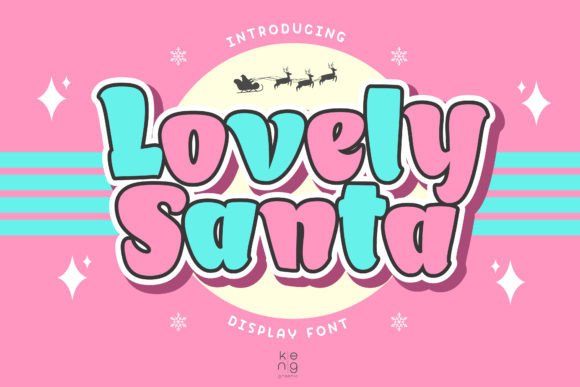
Why Lovely Santa is the Perfect Font for Modern Creative Projects
In today's fast-paced digital world, visual identity plays a crucial role in capturing attention and conveying emotion. One font that has been making waves in the design community is Lovely Santa, a cartoon-style display font that brings a unique blend of youthfulness and courage to any project. With its bold, playful aesthetic, Lovery Santa is more than just a font—it's a statement.
Designed with a focus on clarity and impact, Lovely Santa is ideal for creators looking to add a touch of whimsy without sacrificing professionalism. Its distinct character makes it instantly recognizable, which is especially valuable in a market where standing out is essential. Whether you're designing a comic book cover, a social media post, or a promotional poster, Lovery Santa can elevate your work with its vibrant energy.
The Rise of Playful Typography in Modern Design
The design industry has seen a shift towards more expressive and emotionally resonant visuals. As consumers become more discerning, brands are turning to fonts like Lovely Santa to convey personality and connect with their audience on a deeper level. This trend aligns with the growing demand for content that feels authentic and engaging, rather than generic and impersonal.
Typography is no longer just about readability—it's about storytelling. Lovely Santa embodies this philosophy by offering a visual language that speaks to both children and adults. Its playful curves and dynamic shapes make it perfect for projects that aim to evoke joy, excitement, or nostalgia. In an era where first impressions matter, using a font like Lovery Santa can help your work stand out in a crowded marketplace.
Applications Across Industries and Media
Lovely Santa has found a home in a variety of creative fields, from graphic design to digital marketing. Its versatility allows it to be used in everything from online games and mobile apps to merchandise and advertising campaigns. For instance, indie game developers often use Lovery Santa to give their titles a fun, approachable feel that appeals to younger audiences.
Marketers have also begun to recognize the value of Lovery Santa in creating eye-catching social media content. With platforms like Instagram and TikTok prioritizing visually striking posts, a font that commands attention can make all the difference. Whether it's a promotional banner, a product label, or a hashtag, Lovery Santa adds a layer of creativity that resonates with users.
Understanding the Appeal of Playful Fonts
Why are fonts like Lovery Santa gaining so much traction? Part of the answer lies in the changing preferences of modern consumers. Today’s audiences are drawn to content that feels fresh, original, and emotionally engaging. Generic, overly serious typography no longer cuts through the noise—what works is something that feels alive and expressive.
This shift is particularly evident in the entertainment and lifestyle sectors. Comic books, animated films, and even fashion brands are embracing fonts that reflect their brand's personality. Lovery Santa fits perfectly into this landscape, offering a style that feels both nostalgic and contemporary. Its ability to bridge the gap between traditional and modern aesthetics makes it a valuable tool for designers across industries.
Moreover, the rise of remote work and digital collaboration has increased the need for tools that support creativity and efficiency. Lovery Santa is not only visually appealing but also easy to integrate into design workflows. With its clear structure and consistent spacing, it ensures that text remains legible even at smaller sizes—a critical factor for digital content.
Practical Examples of Lovley Santa in Action
One notable example of Lovery Santa in use is in the creation of limited-edition merchandise. T-shirt designers, for instance, often incorporate the font into their artwork to create a sense of exclusivity and fun. The font's boldness ensures that the message stands out, while its cartoon-like style adds a lighthearted touch that appeals to a wide range of customers.
Another area where Lovery Santa shines is in the realm of movie titles and promotional materials. Filmmakers and production companies use the font to create posters that grab attention and set the tone for the film. Its energetic look is particularly effective for family-friendly or adventure-themed movies, where the goal is to communicate excitement and adventure in a single glance.